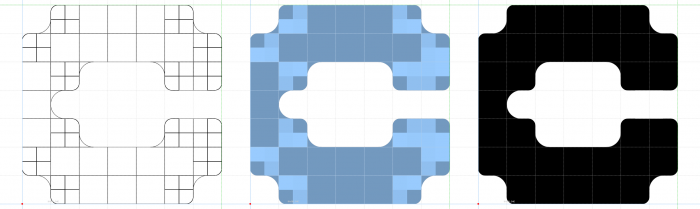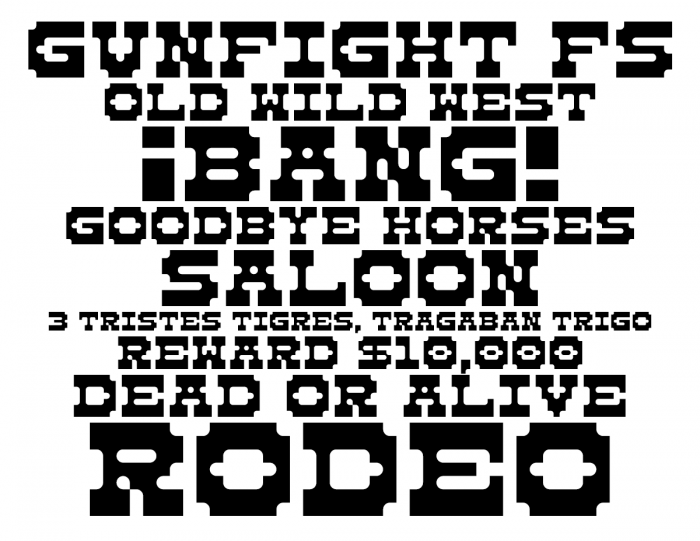
• Taking advantage of the modular characteristics of the GunFight 8 Bit font (7x7 pixels), I have added concave bricks following the flow of the original style.
Work in progress.
Aprovechando las características modulares de la fuente GunFight 8 Bit (7x7 píxeles), he añadido ladrillos cóncavos siguiendo el flujo del estilo original.
Trabajo en progreso.
¡Ey! No hay dos sin tres. Esta también funciona muy bien. Hey! There are no two without three. This also works great.
@Dmitriy Sychiov (Sychoff) Sure, but first I need to move the card symbols into their correct unicode cell, and add the dice symbols I've added to the original font. But if you're interested in cloning this FontStruction in its current state you can go ahead and add the Cyrillic characters.
Preview from the next Iteration of Gunfight S FS, where I make use of the option to create composite bricks to soften the corners of the letters.
Vista previa de la próxima iteración de Gunfight S FS, donde hago uso de la opción para crear ladrillos compuestos para suavizar las esquinas de las letras.